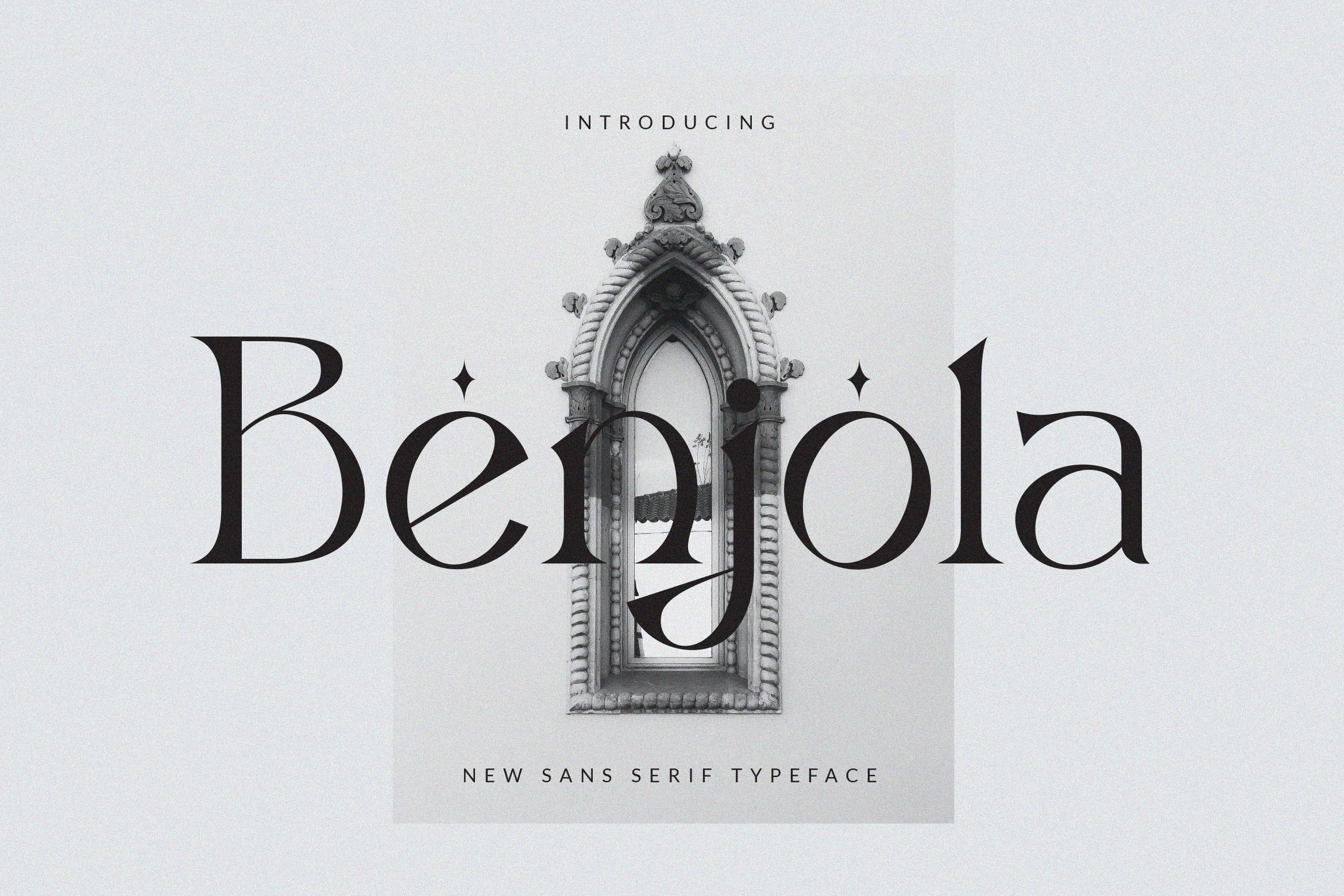
Benjola Font
Designed by ToniStudio
About Benjola
Benjola is an elegant serif that blends traditional influences into a contemporary aesthetic. Elegantly crafted and easily be matched to an incredibly large set of projects. Use Benjola to achieve an exquisite, yet subtle look and maximum versatility.